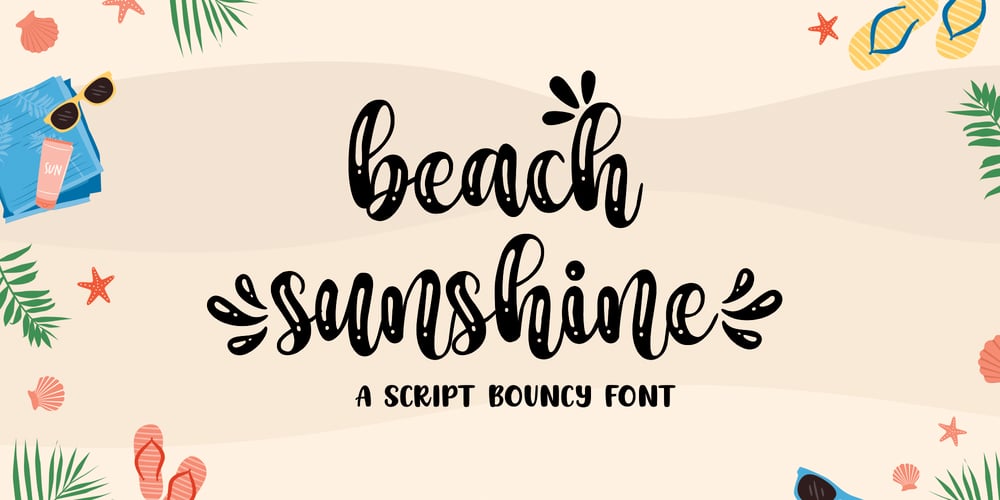
Beach Sunshine Font Family was designed by SU KASIH and published by Mozatype. Beach Sunshine contains 1 styles and family package options. Beach Sunshine – Clean Version is a fresh and sweet handwritten font.A little bit quirky, this font looks incredibly adept on a wide variety of contexts.Fall in love with its incredibly versatile style and use it to create spectacular designs!This font is ideal for crafting, branding and decorate your any project. This fonts are perfect for wedding invitations or your blog. Also with their help, you can create a logo or beautiful frame for your home. Or just use for your business, book covers, stationery, marketing, magazines and more.Fall in love with its incredibly versatile style and use it to create spectacular designs!Use this font for any crafting project that requires a personalized look!What’s Included :– Works on PC & Mac– Easy to use ( Installations )– Easy Convert to webfonts– Compatibility Windows, Apple, Linux, Cricut, Silhouette and Other cutting machinesThanks for downloading, and I hope you enjoy it!